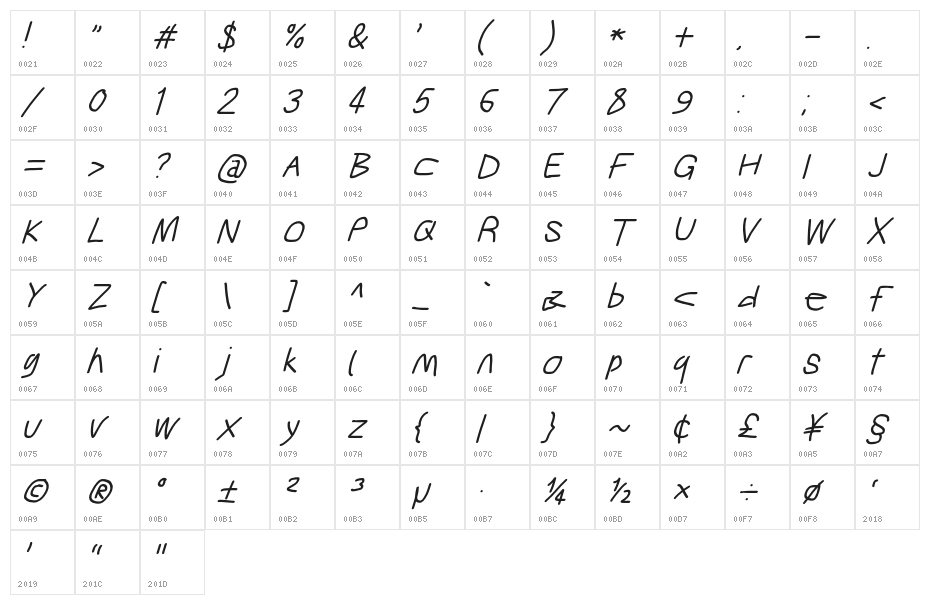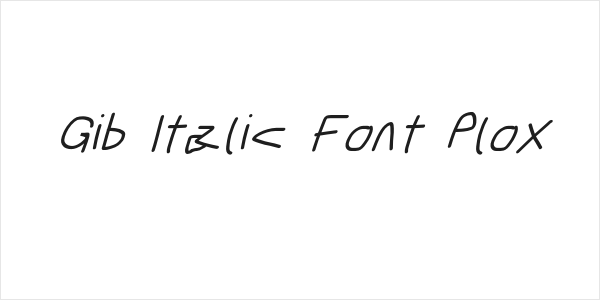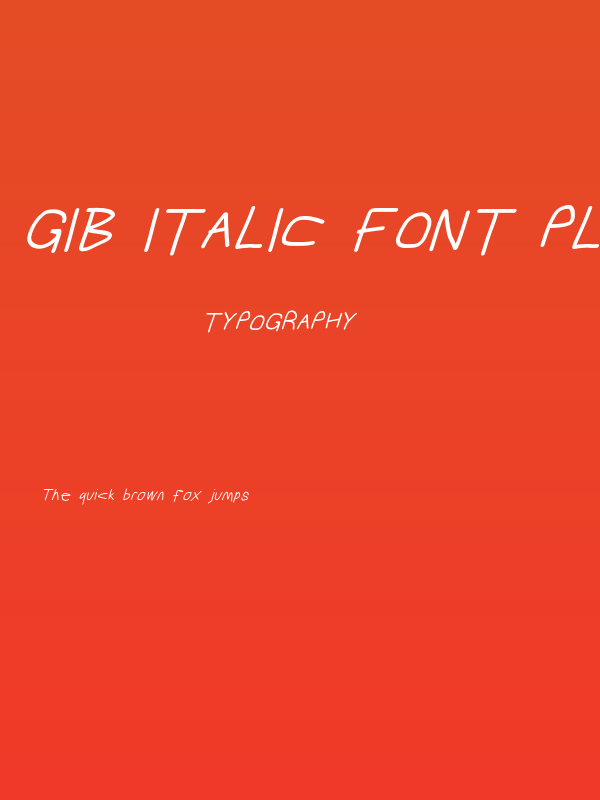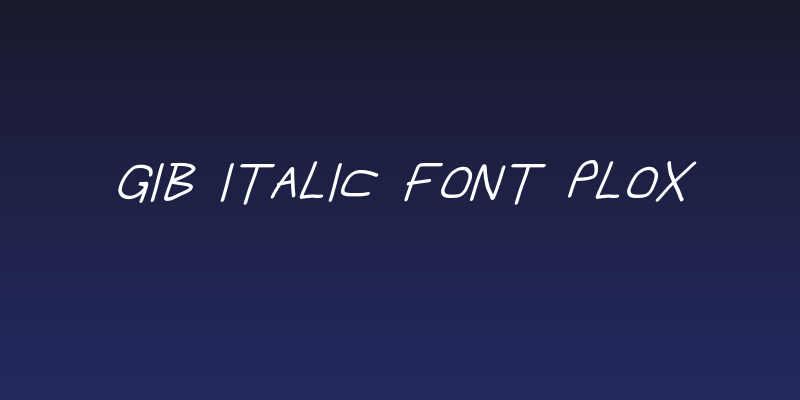
Gib Italic Font Plox Font
Gib Italic Font Plox Description
This font features a handwritten, cursive style with a playful and casual appearance. The letters are slightly slanted, giving it an italicized look, which adds to its dynamic and informal character. The strokes are smooth and consistent, with rounded edges that contribute to its friendly and approachable feel. The uppercase and lowercase letters maintain a uniform style, ensuring readability while retaining a personal touch. Numbers and special characters are crafted with the same fluidity, making them blend seamlessly with the alphabetic characters. This font is ideal for projects that require a personal, human touch, such as invitations, greeting cards, or casual branding.
| Use Case | Headlines, Informal text, Personal projects |
| Proposed Projects | Ideal for invitations, greeting cards, personal branding, and casual design projects. |